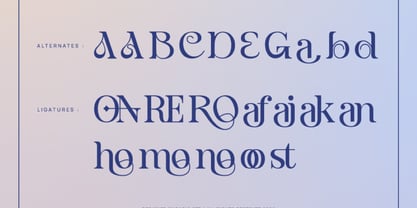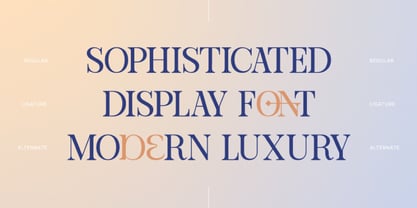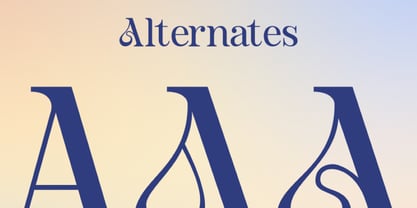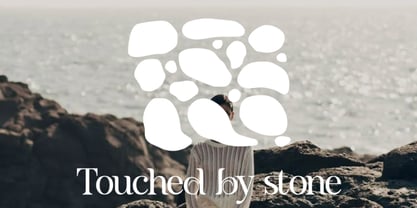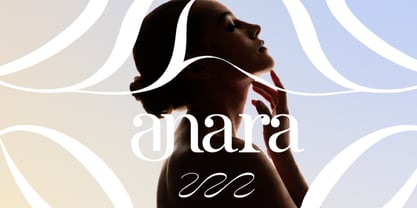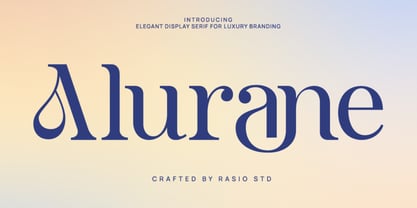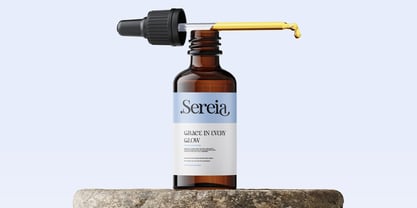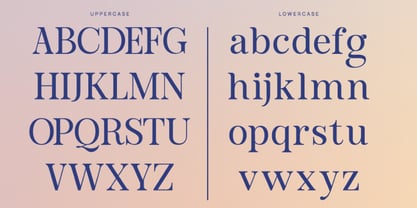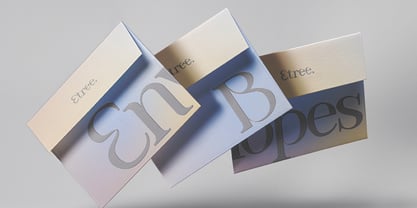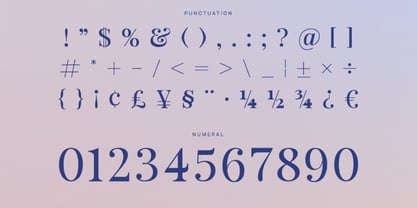
Alurane
Alurane is an elegant modern serif typeface crafted with refined proportions, soft curves, and sophisticated high-contrast strokes that express luxury and timeless beauty. Its graceful ligatures, sharp details, and balanced letterforms create a premium editorial presence with a clean yet expressive character. Relevance and Use Cases is perfect for luxury branding, fashion editorials, beauty packaging, boutique logos, wedding stationery, cosmetic labels, magazine layouts, book covers, certificates, social media campaigns, premium marketing materials, and any project that requires a refined, timeless, and sophisticated serif presence.